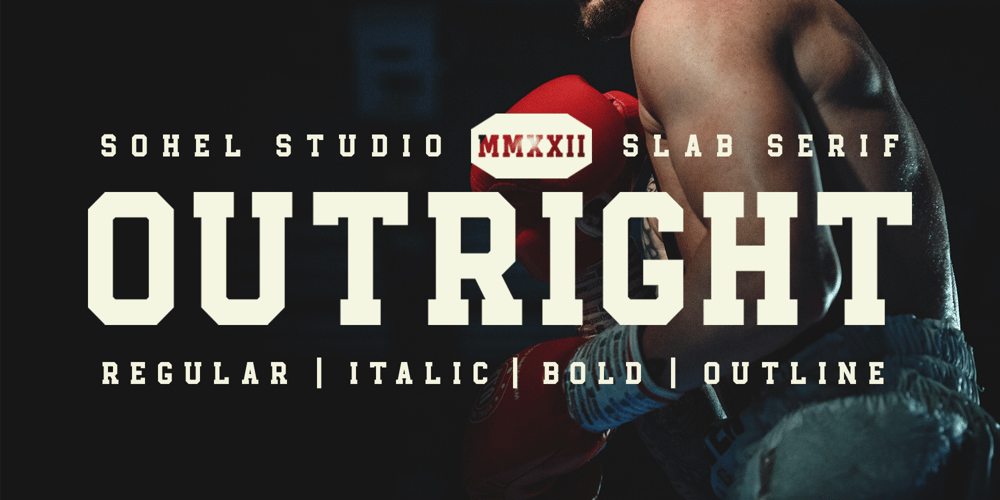
Outright Font Family was designed by Akhmad Husain Rifa’i and published by Sohel Studio. Outright contains 4 styles and family package options. Outright slab serif inspired by sporty design, vintage style with a touch of classic style. There are 4 different styles that you can apply in your design projects. This font is built with solid foundations, strong visuals, old-school movement, and a modern minimalist style. Outright is perfect for , Jersey , athletic, poster, branding projects, Logo design, Clothing Branding, product packaging, for magazine titles. for something with the theme of sports, album title, etc Outright Features: · 4 Weights font (Regular,Italic,Bold,Outline) · Numerals & Punctuation · Accented characters · Multilingual Support · PUA Encoded While using this product, if you encounter any problem or spot something we may have missed, please don’t hesitate to drop us a message. We’d love to hear your feedbacks in order to further fine-tune our products. Thanks and have a wonderful day